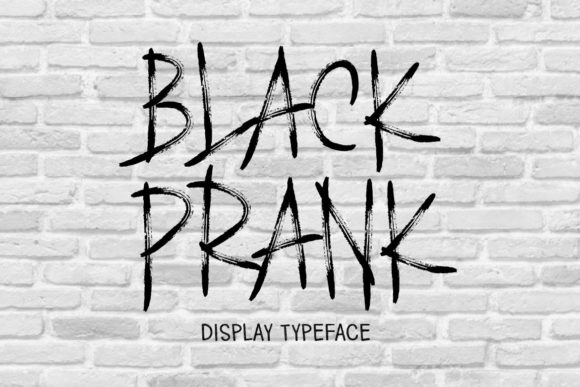
Enter the realm of typographical audacity with Black Prank, a display font that exudes a quirky charm and undeniable versatility. Its mischievous nature dances effortlessly across a spectrum of creative endeavors, leaving a trail of visual intrigue in its wake.
With Black Prank, you're not just downloading a font; you're acquiring a creative accomplice, a font that eagerly collaborates with your imagination to birth designs that captivate and entice. Its playful personality shines through in logos, posters, social media graphics, and branding projects, adding a dash of whimsy and a heap of originality. This font is a perfect match for any design project that seeks to leave an enduring mark.
Black Prank's allure extends beyond its aesthetics. Its meticulously crafted letterforms ensure flawless readability, making it an ideal choice for extended texts and body copy. Experience the harmonious blend of style and functionality as your designs seamlessly communicate their message, leaving your audience captivated and eager for more.
In the realm of artistic expression, Black Prank is a muse, a font that sparks creativity and ignites the imagination. Its unique character breathes life into quotes, turning ordinary words into evocative statements that resonate with your audience. Unleash your inner artist and let Black Prank guide you toward designs that inspire, intrigue, and leave an indelible impression.